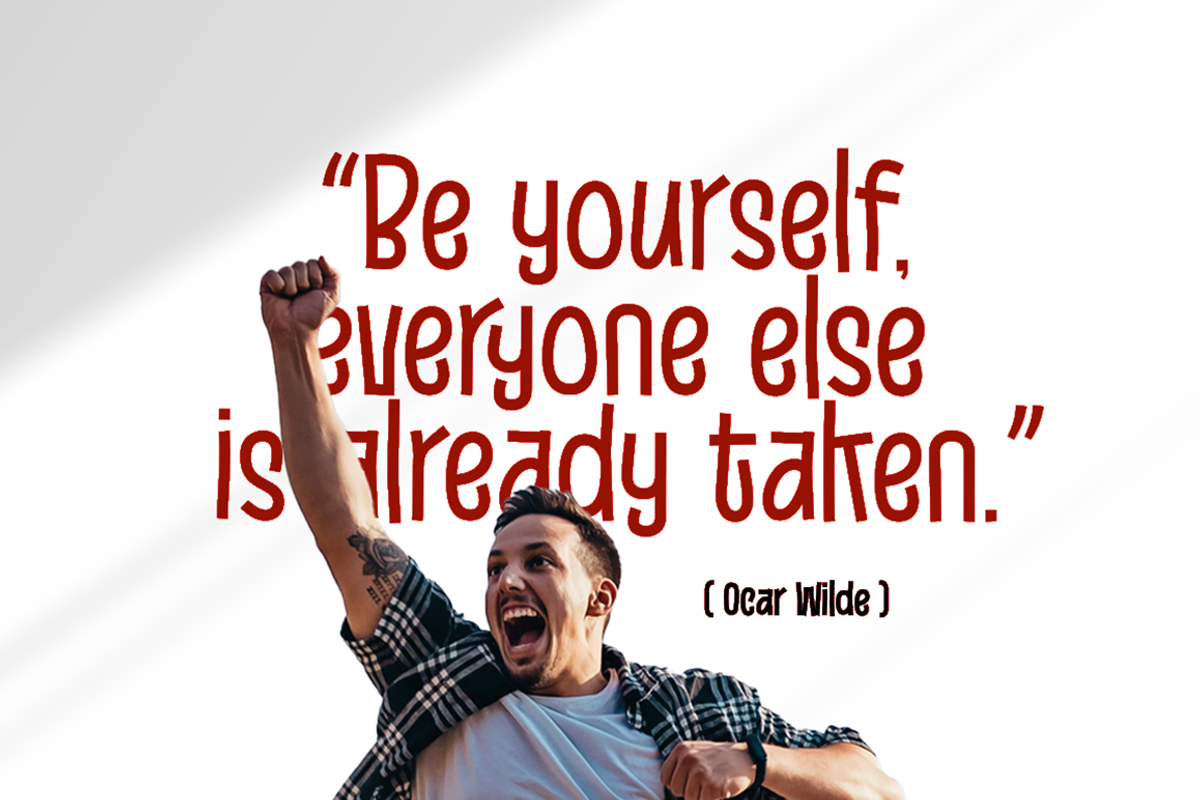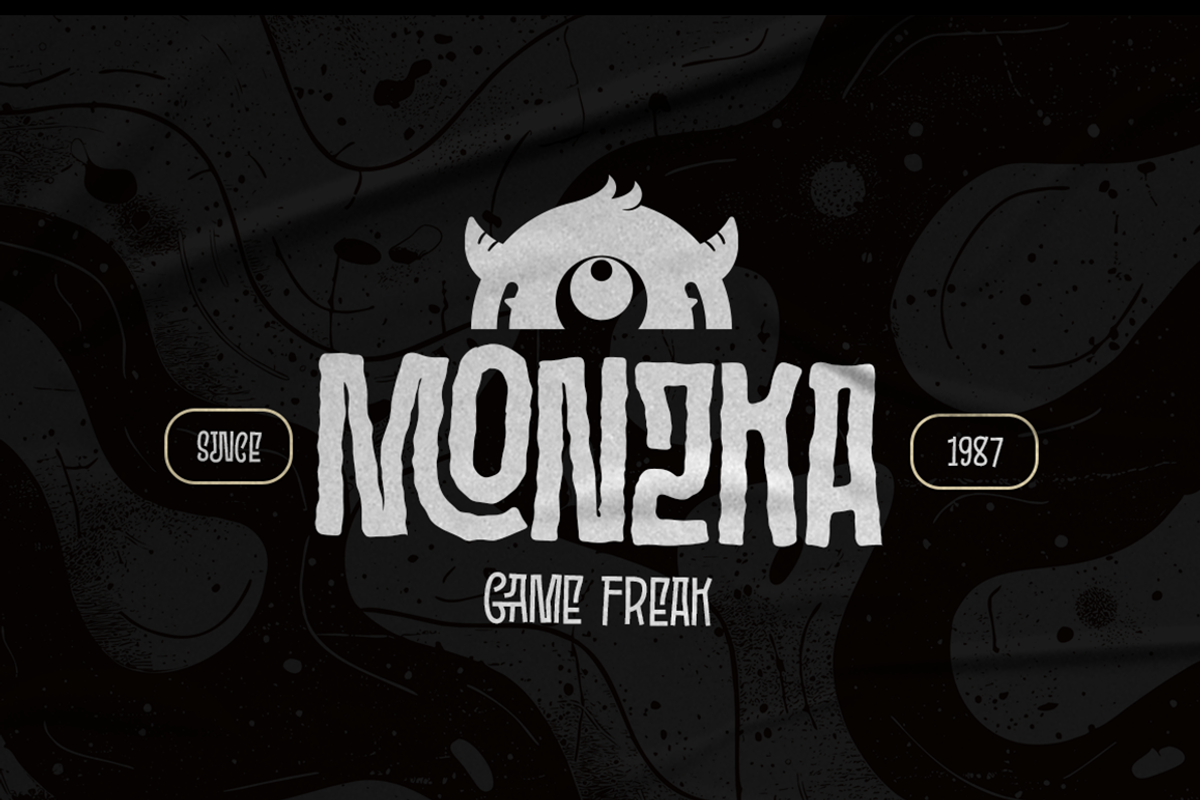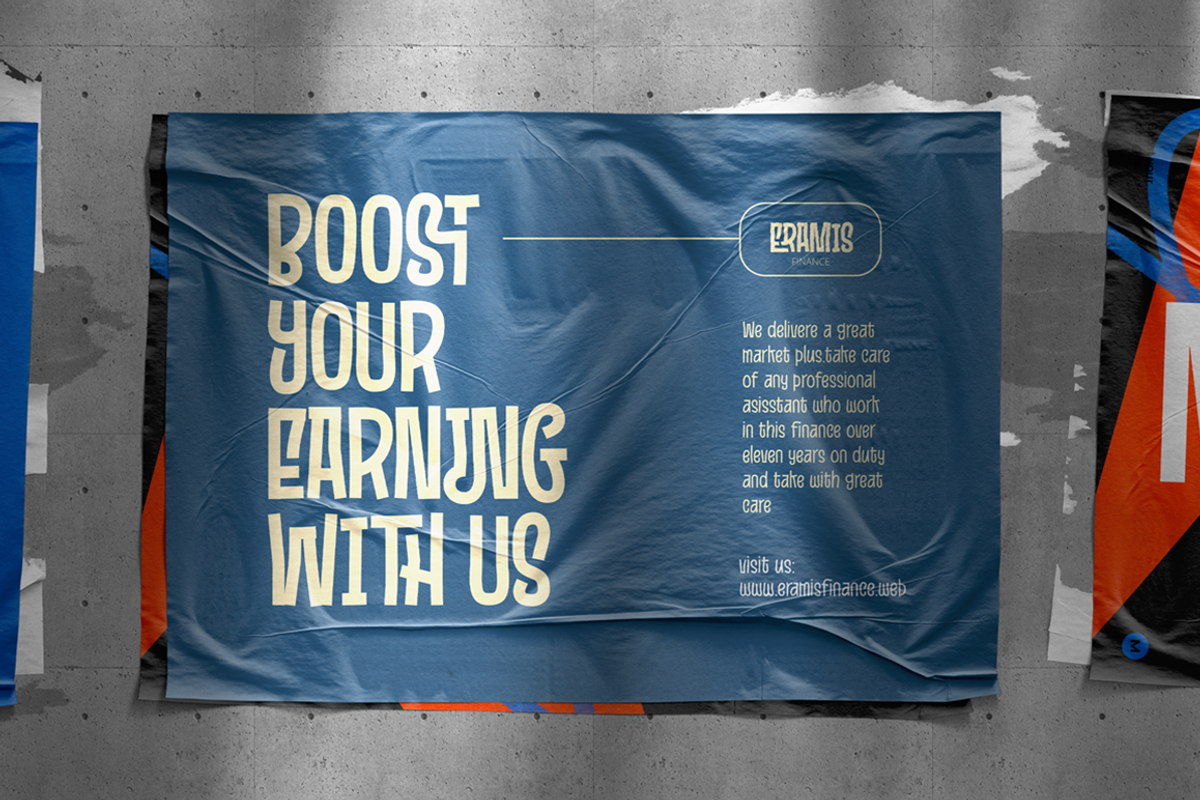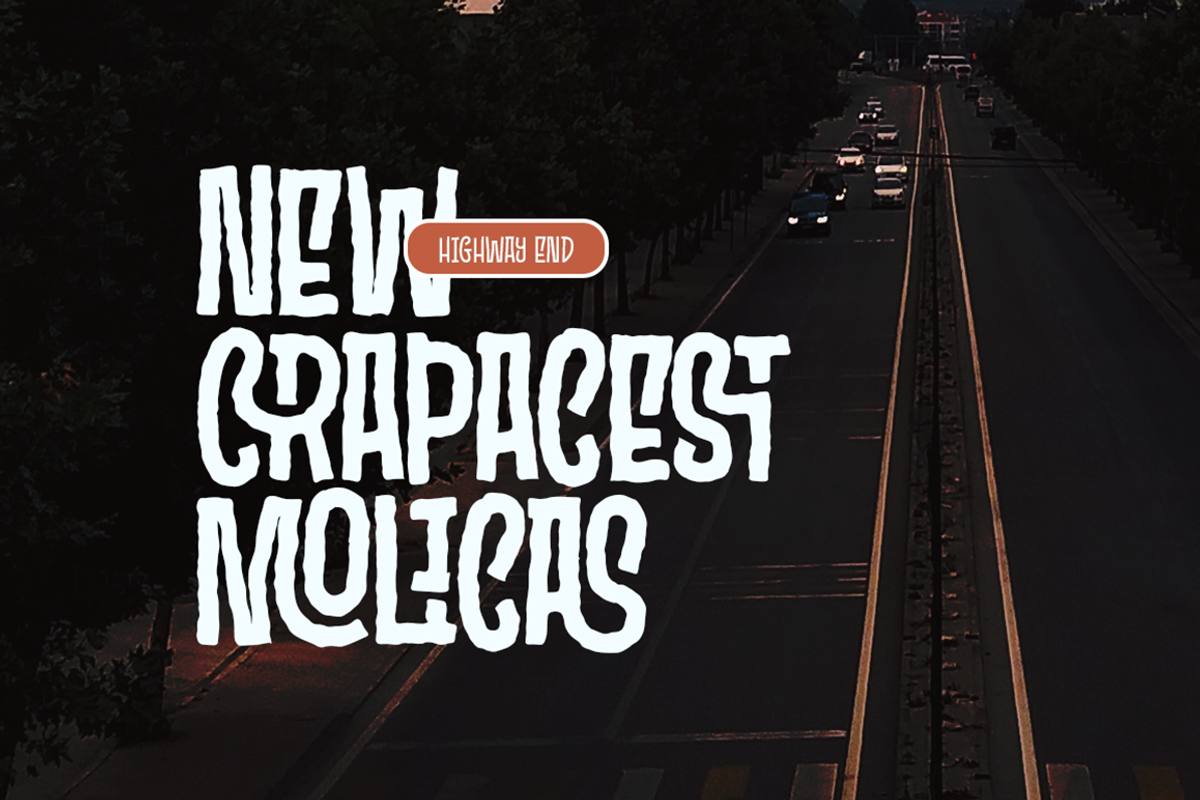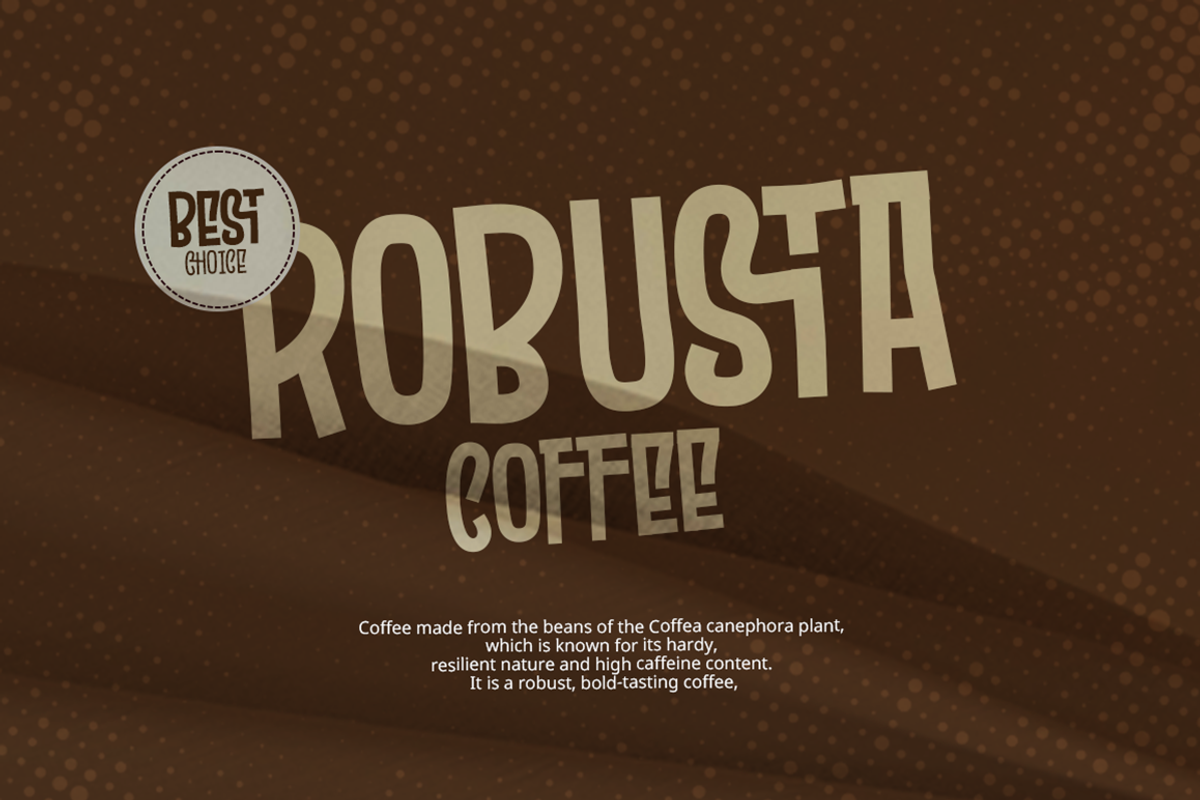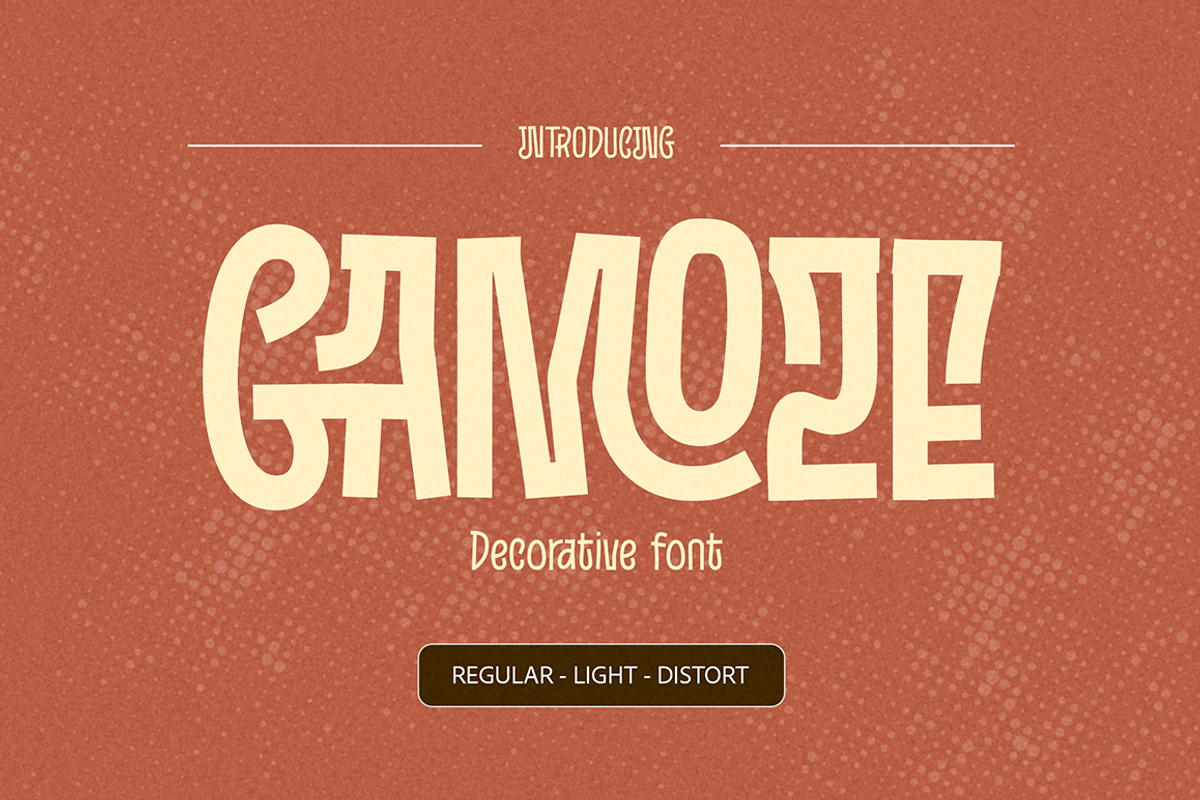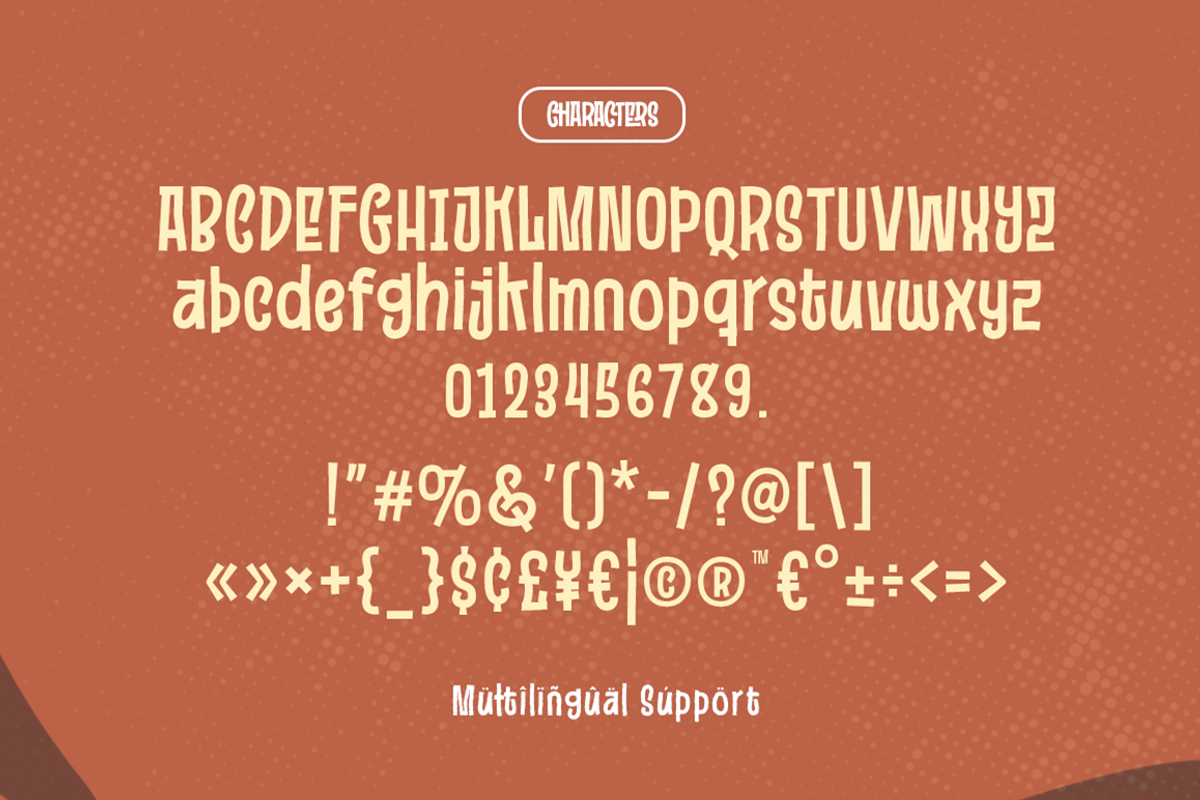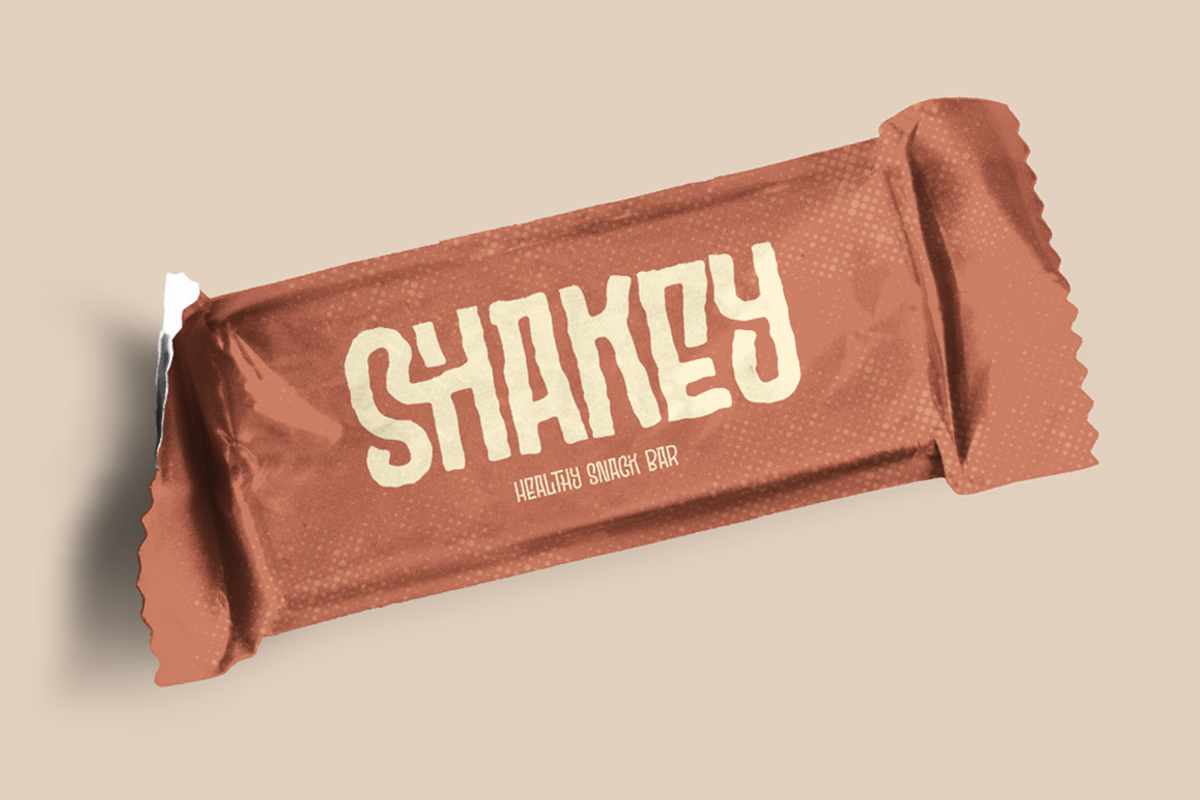
Gamoze - Stylish Decorative Font
Gamoze is a Stylish and Casual decorative font designed to stand out in any creative project. Available in three distinctive styles—Regular, Light, and Distort—each variation carries its own personality while maintaining a cohesive design language. Enhanced with a set of unique ligature variations, Gamoze offers flexibility and originality, making it the perfect choice for bold headers, striking logotypes, and eye-catching branding projects.
- Decorative Family Font
- Unique Font
- Stylish Ligature Pairs
- Basic Latin Glyphs
- Currencies